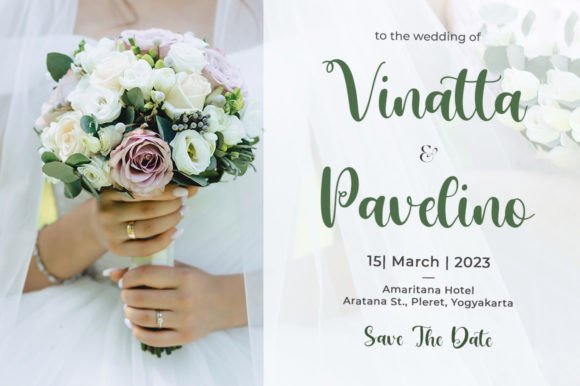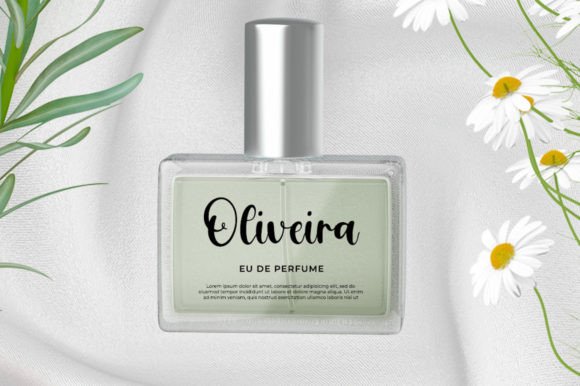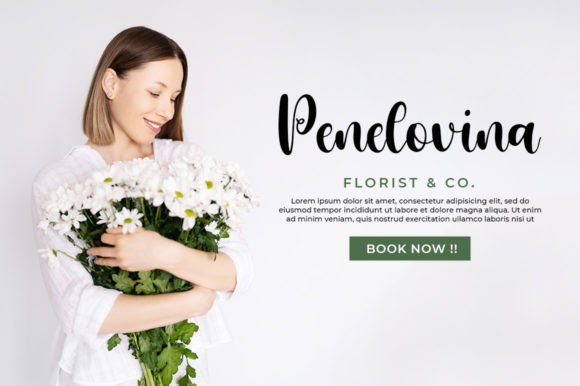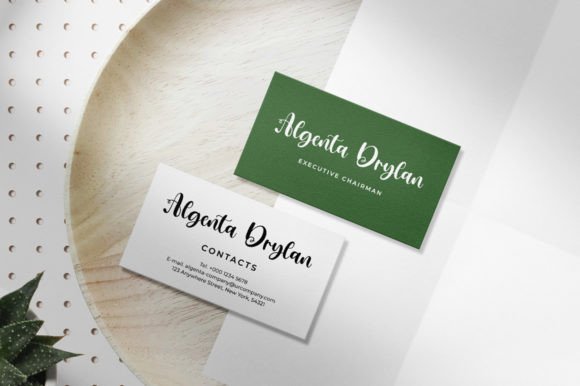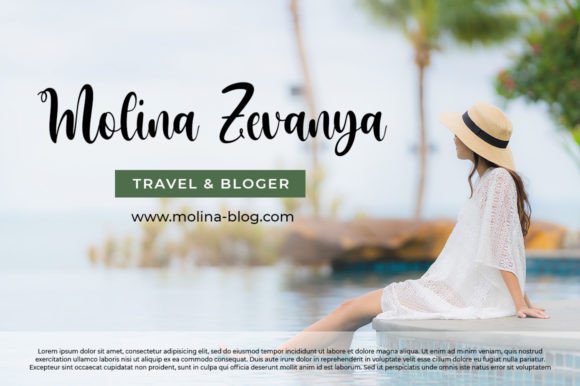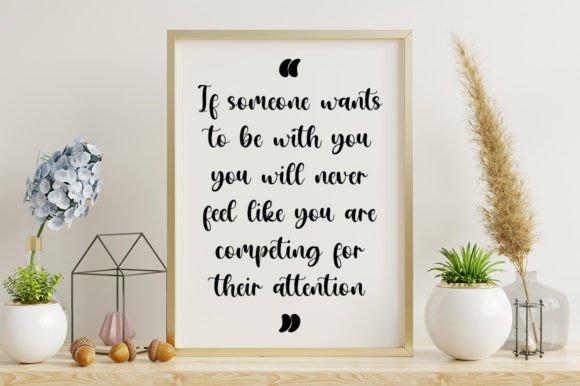
Introduction to Onomatopia Font
Have you ever been working on a creative project, pouring your heart and soul into it, only to realize that it’s missing that special something to make it truly stand out? That’s where the Onomatopia Font comes in – a beautiful script font that adds a touch of elegance and sophistication to your work. With its modern look and feel, this font is perfect for designers looking to give their projects a personal touch.
As a designer, you know how valuable a high-quality font can be. Not only does it elevate the overall aesthetic of your work, but it also helps to convey the message and tone you’re trying to convey. That’s why the Onomatopia Font is such a valuable resource – it’s free to download and offers a transparent background, making it perfect for any creative project.
Key Features of Onomatopia Font
- High-quality design with unique, creative characters that can enhance any project, making it perfect for designers working on a creative project.
- High-resolution design, suitable for print and digital applications, including posters, flyers, and digital graphics.
- Designed to be versatile, with a wide range of applications, from branding and advertising to editorial and publishing.
- Can be easily resized without losing quality, making it perfect for use in a variety of sizes and resolutions, from small text to large headings.
Honest Review: Onomatopia Font
I recently stumbled upon the Onomatopia Font while searching for design resources for a creative project. I was immediately drawn to its unique and quirky style.
- ✨ The font is high quality and perfect for adding a touch of whimsy to any design.
- ✨ It’s incredibly versatile and can be used for a wide range of creative projects.
- ⚠️ The font may not be suitable for all types of designs, particularly those that require a more formal tone.
- ⚠️ The font’s unique style may not be to everyone’s taste.
Overall, I’m impressed with the Onomatopia Font. It’s a great design resource for anyone looking to add some personality to their creative project. While it may not be perfect for every design, it’s definitely worth checking out.
The Onomatopia Font is a versatile design resource that can be used in various creative projects, including graphic design, digital art, and typography-based art. Its unique style makes it perfect for creating attention-grabbing titles, headings, and body text.